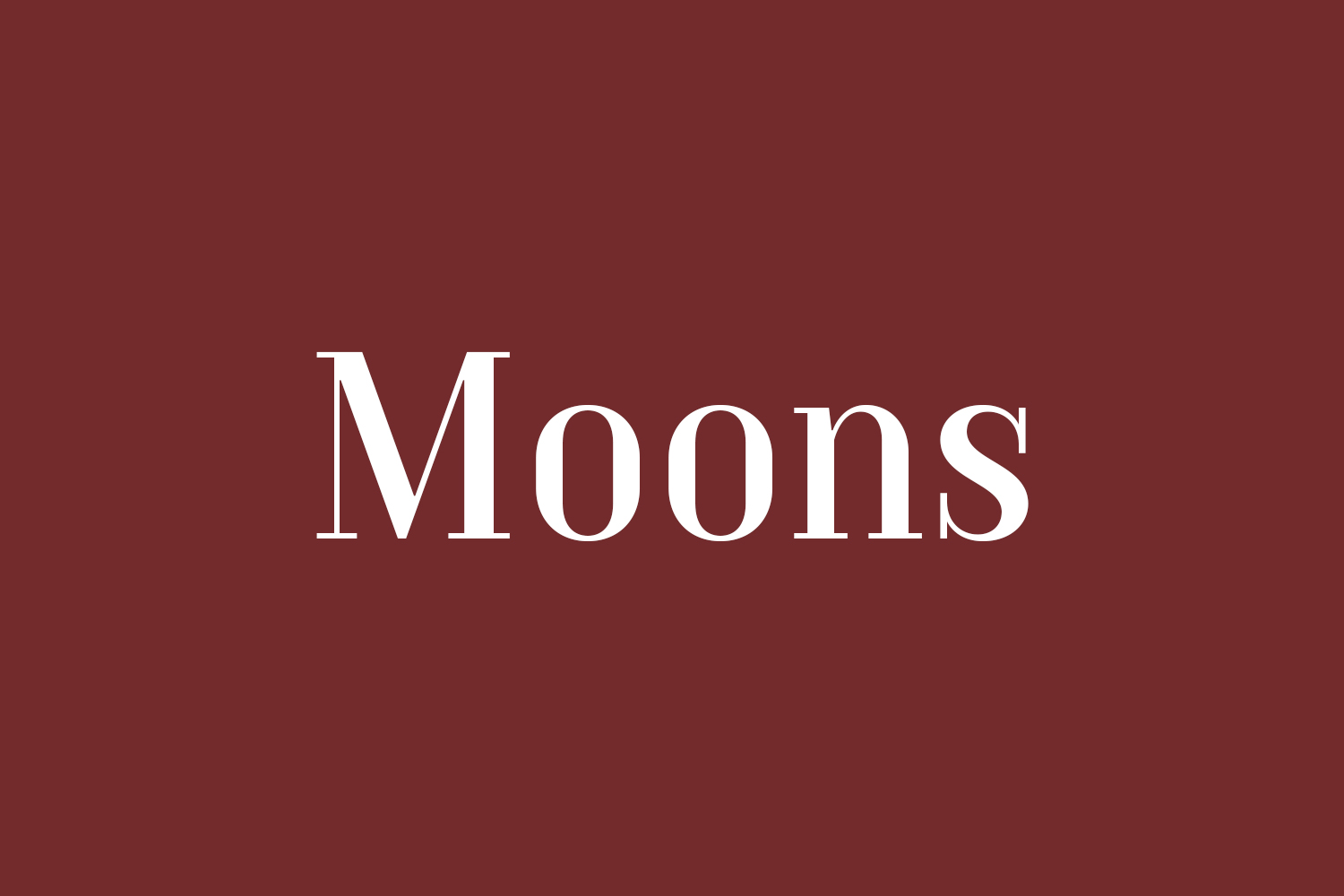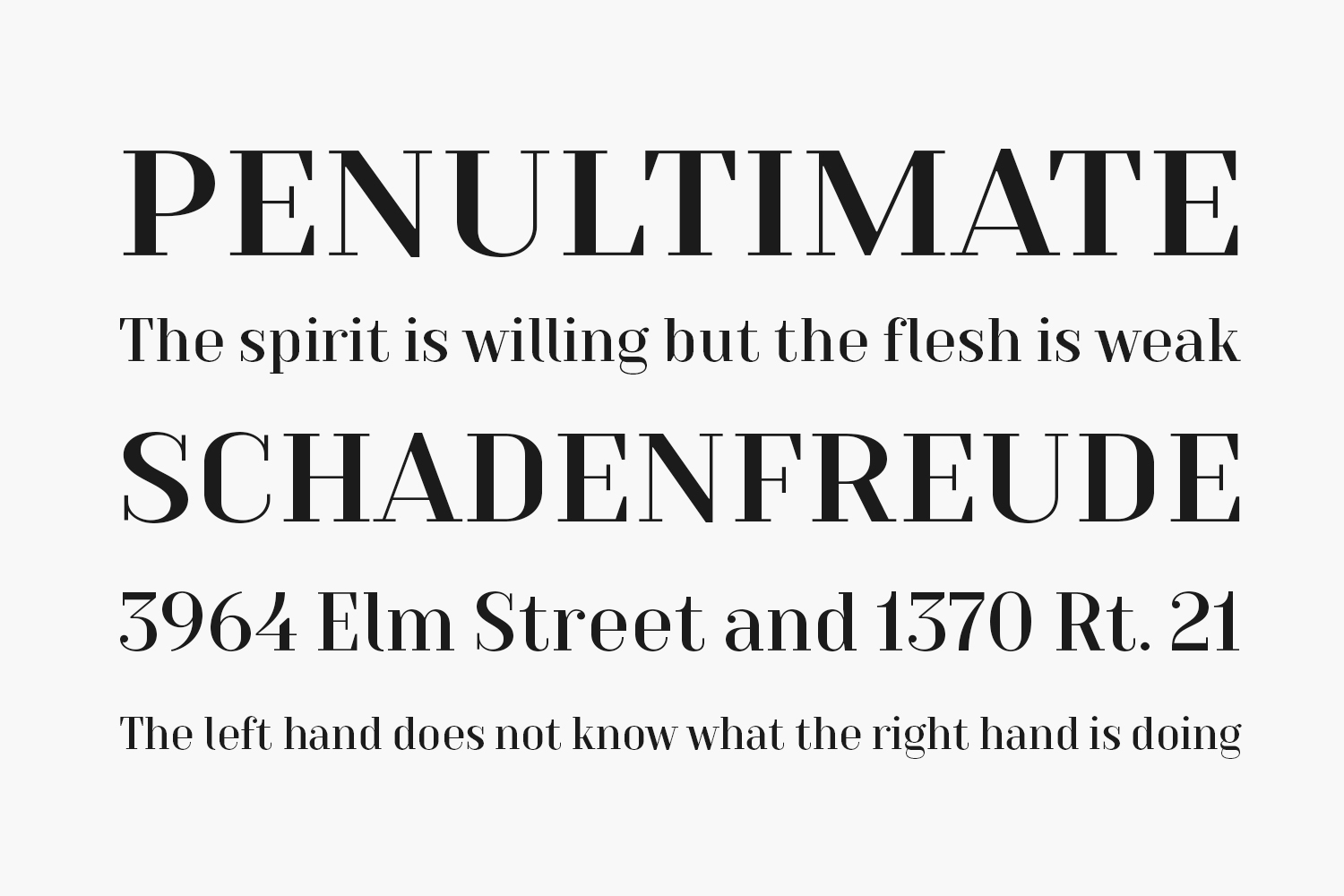
Moons Free Font Family is like a celestial typographic creation that fuses the elegance of traditional serif fonts with the otherworldly charm of a full moon on a clear night. Its letterforms dance and sway like lunar craters and valleys, while the serifs themselves evoke a sense of timeless sophistication. Whether you’re looking to add a touch of celestial wonder to your designs or simply want to elevate your typography game, Serif Moons Free Font is the perfect choice for your next project.